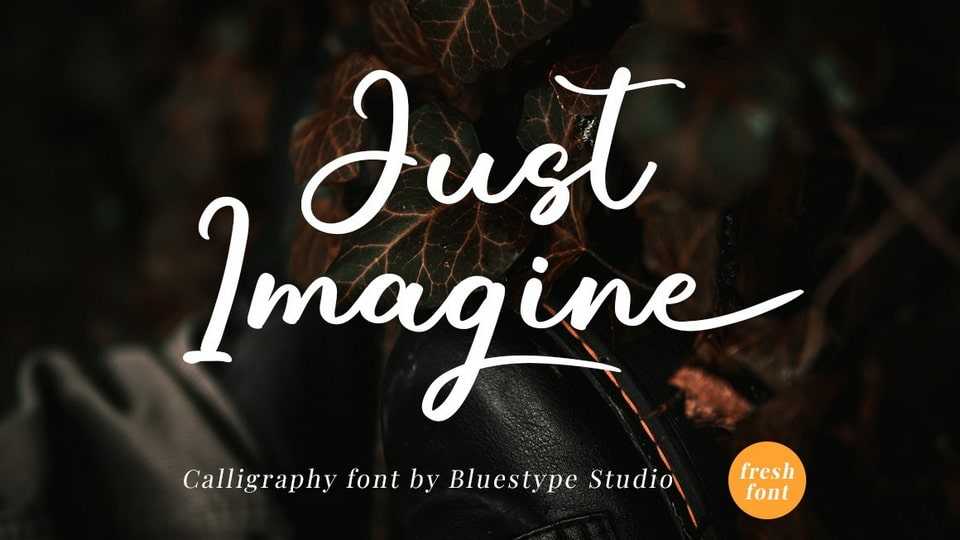
Download Just Imagine font, a modern calligraphy script that is written by hand, has elegant and beautiful curves. This font is suitable for use on weddings, business card, logotype, magazines, quotes, fashion, watermarks, invitations.